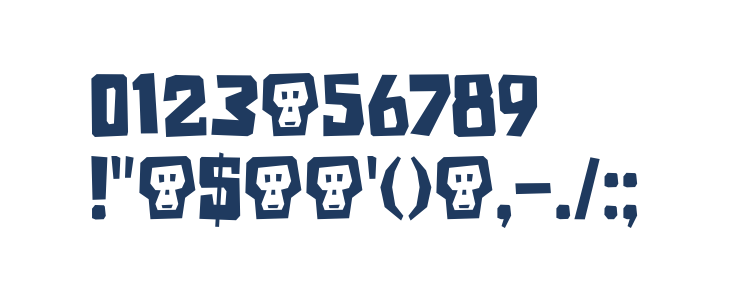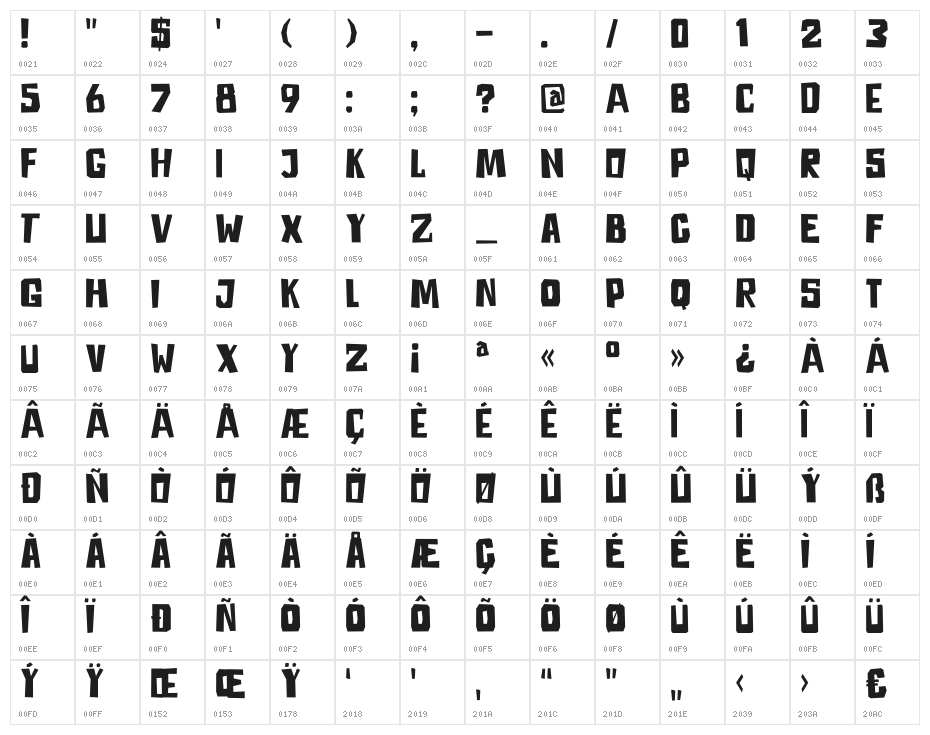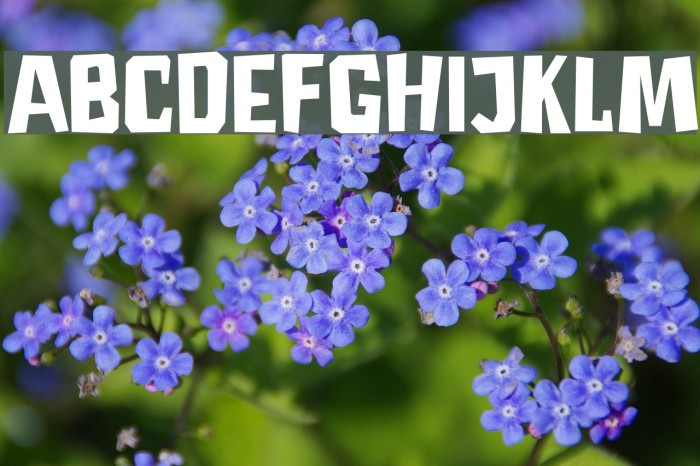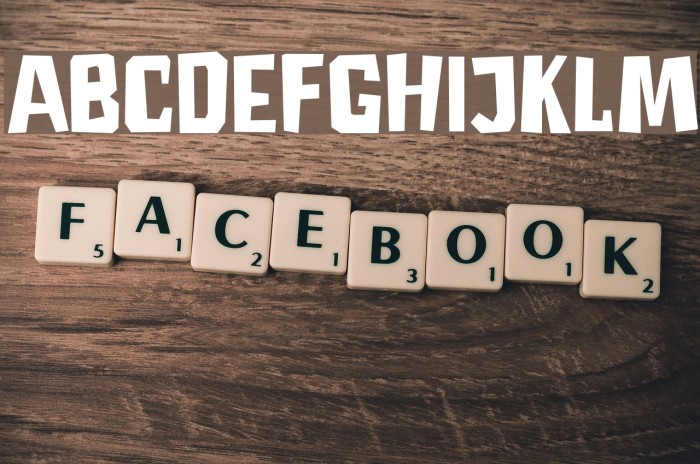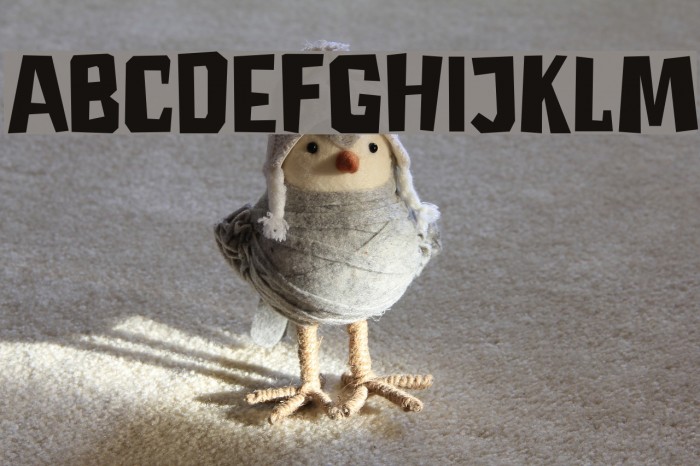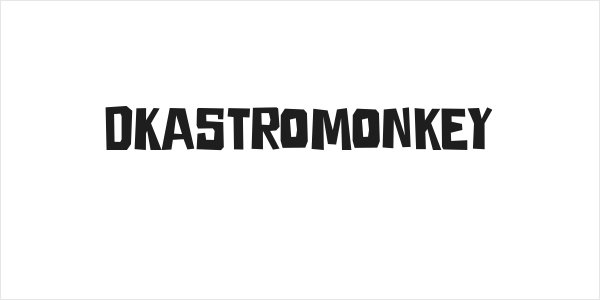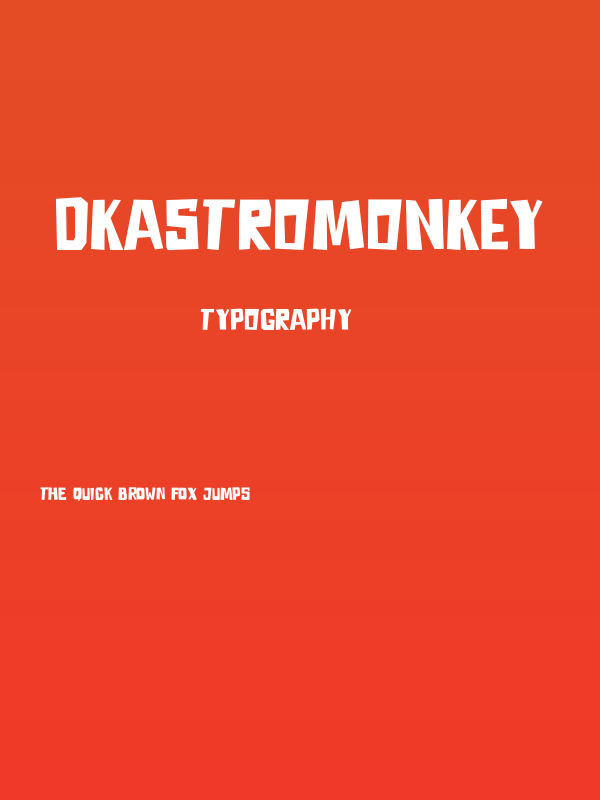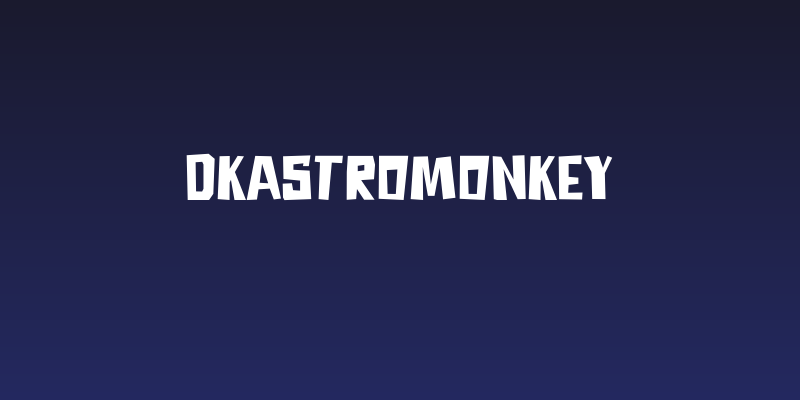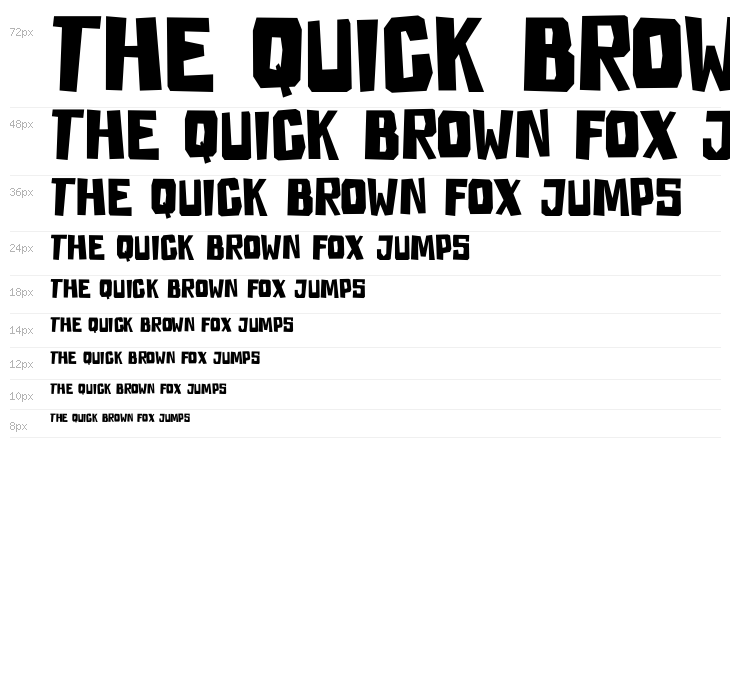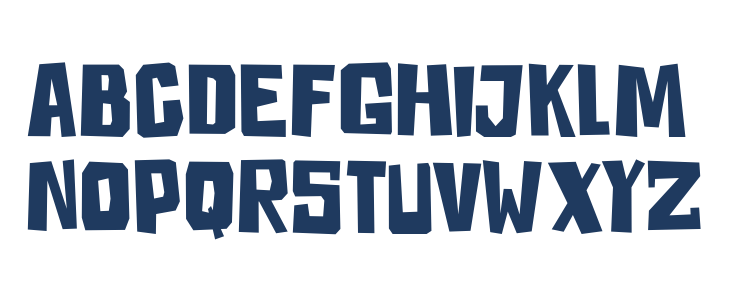
DKAstromonkey Font
DKAstromonkey Description
This font features a bold and playful design with a distinctively irregular and angular style. The characters are heavily stylized, with sharp edges and a slightly chaotic appearance that gives it a unique and eye-catching look. The uppercase and lowercase letters maintain a consistent theme, each character exhibiting a quirky, almost hand-cut aesthetic. The numbers and special characters follow suit, with some characters like the skull symbol adding a whimsical touch. This font is perfect for projects that require a bold statement or a fun, unconventional vibe.
| Use Case | Headlines, Posters, Logos |
| Proposed Projects | Ideal for posters, comic books, video game graphics, or any project needing a bold, playful touch. |